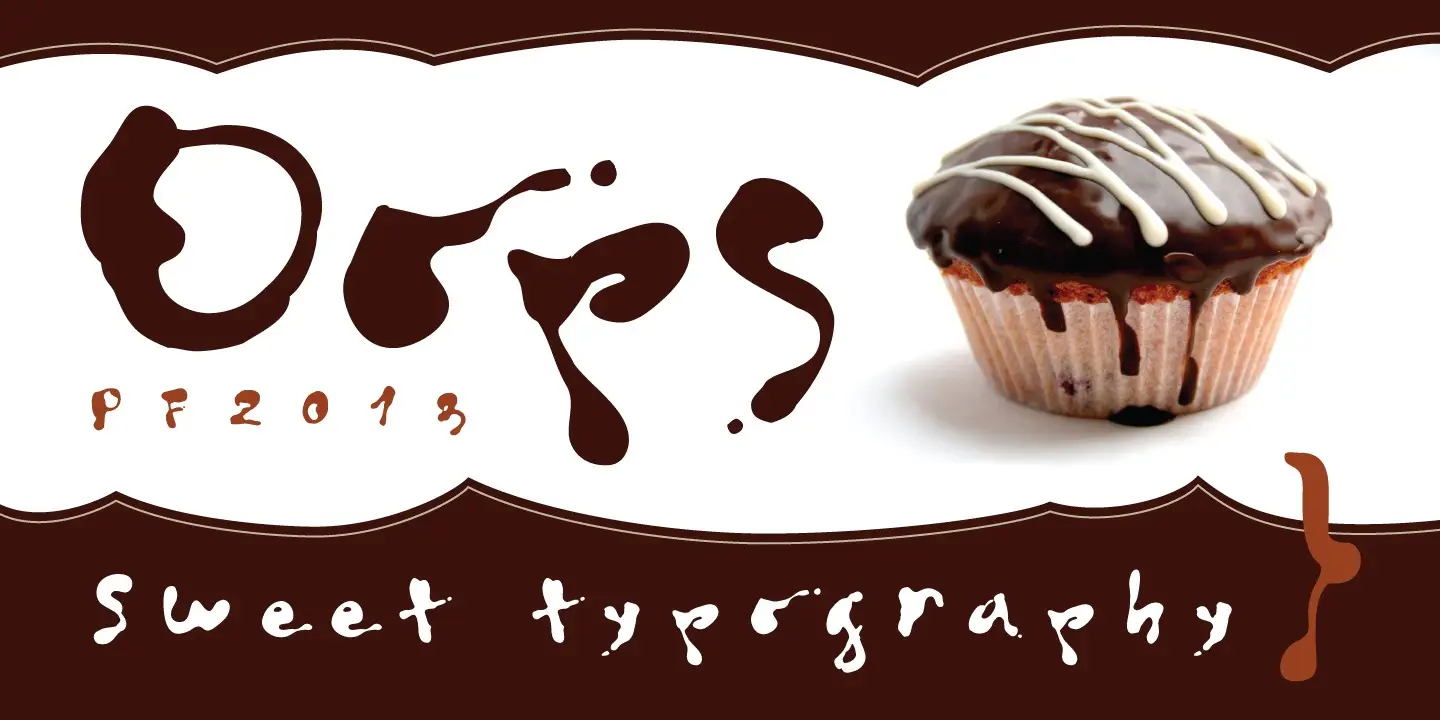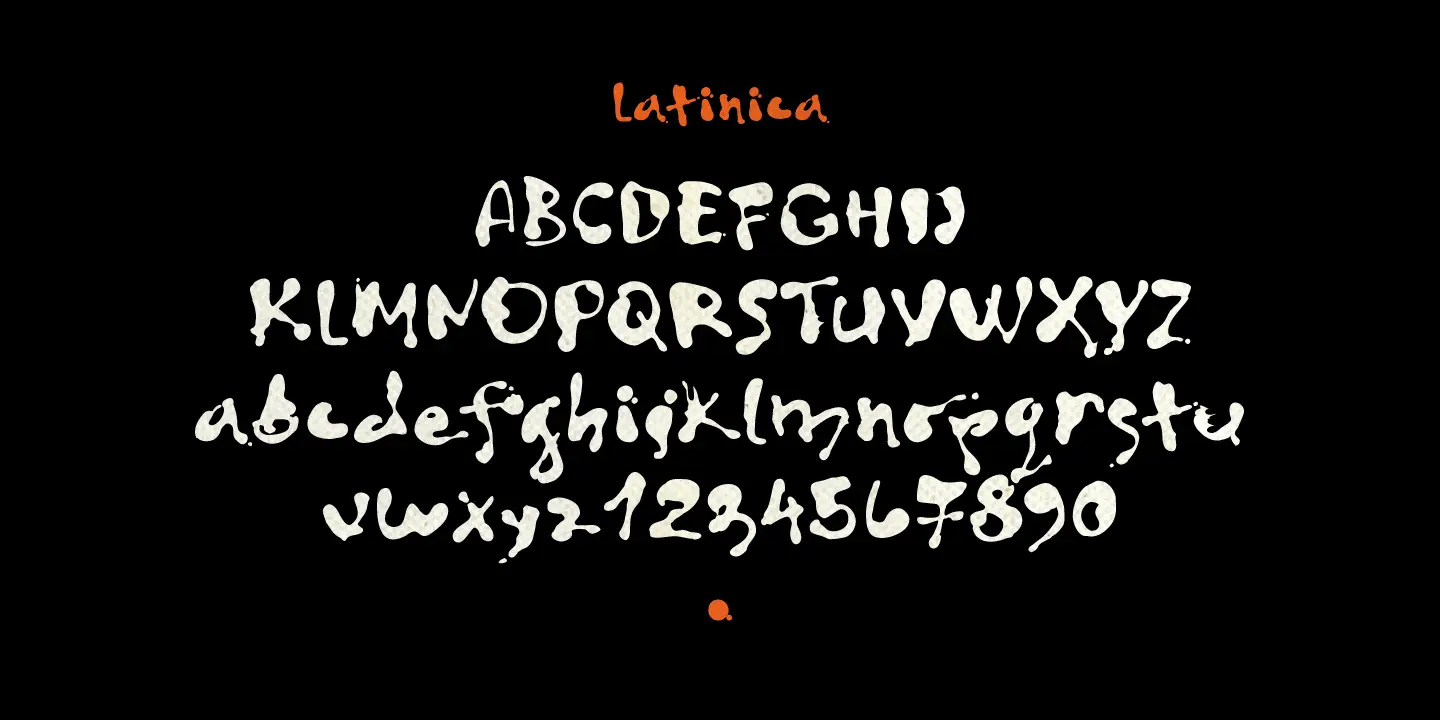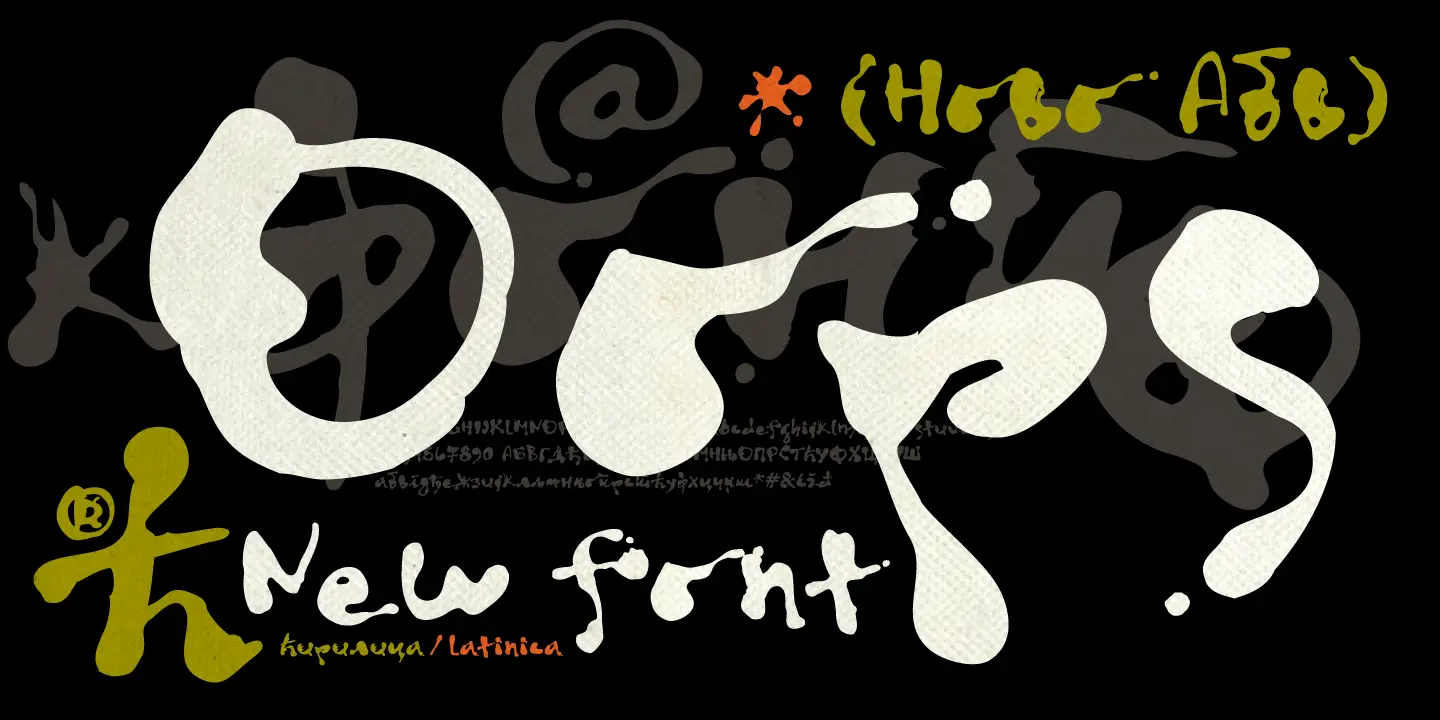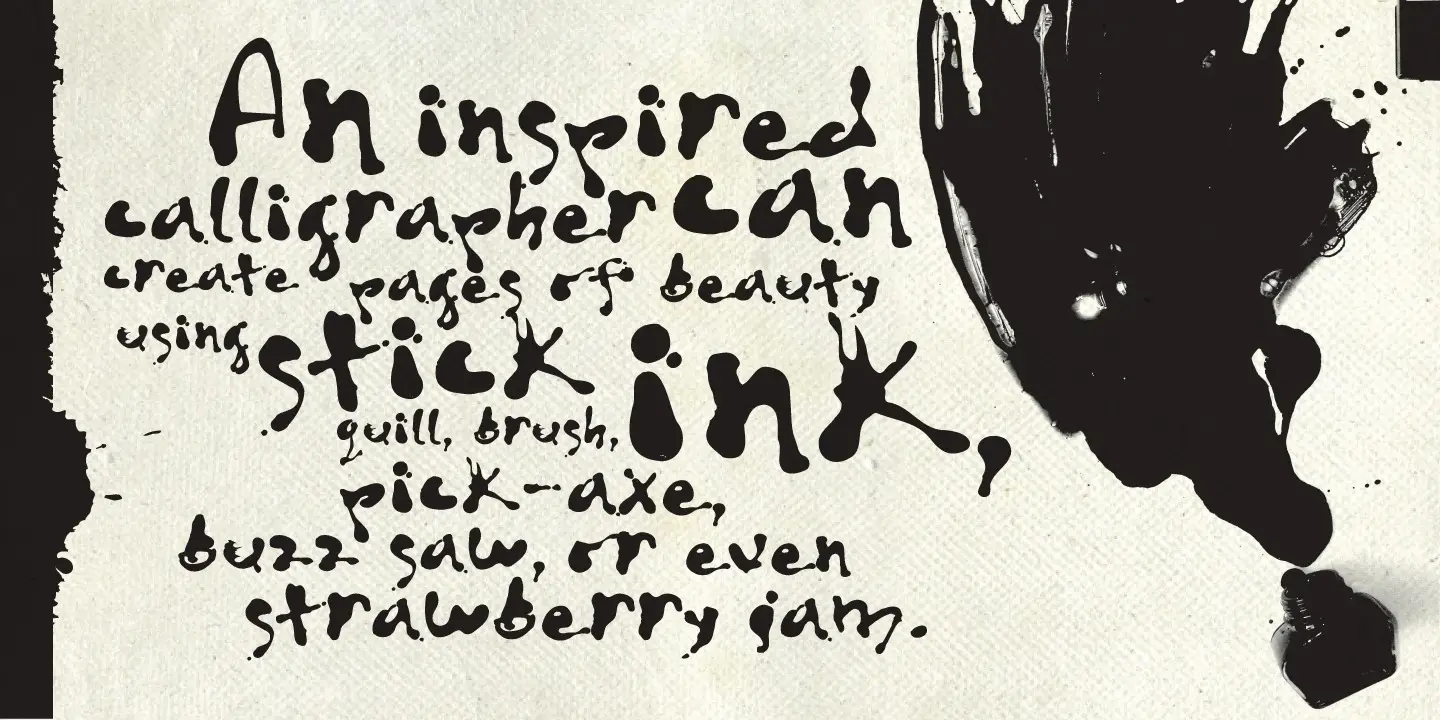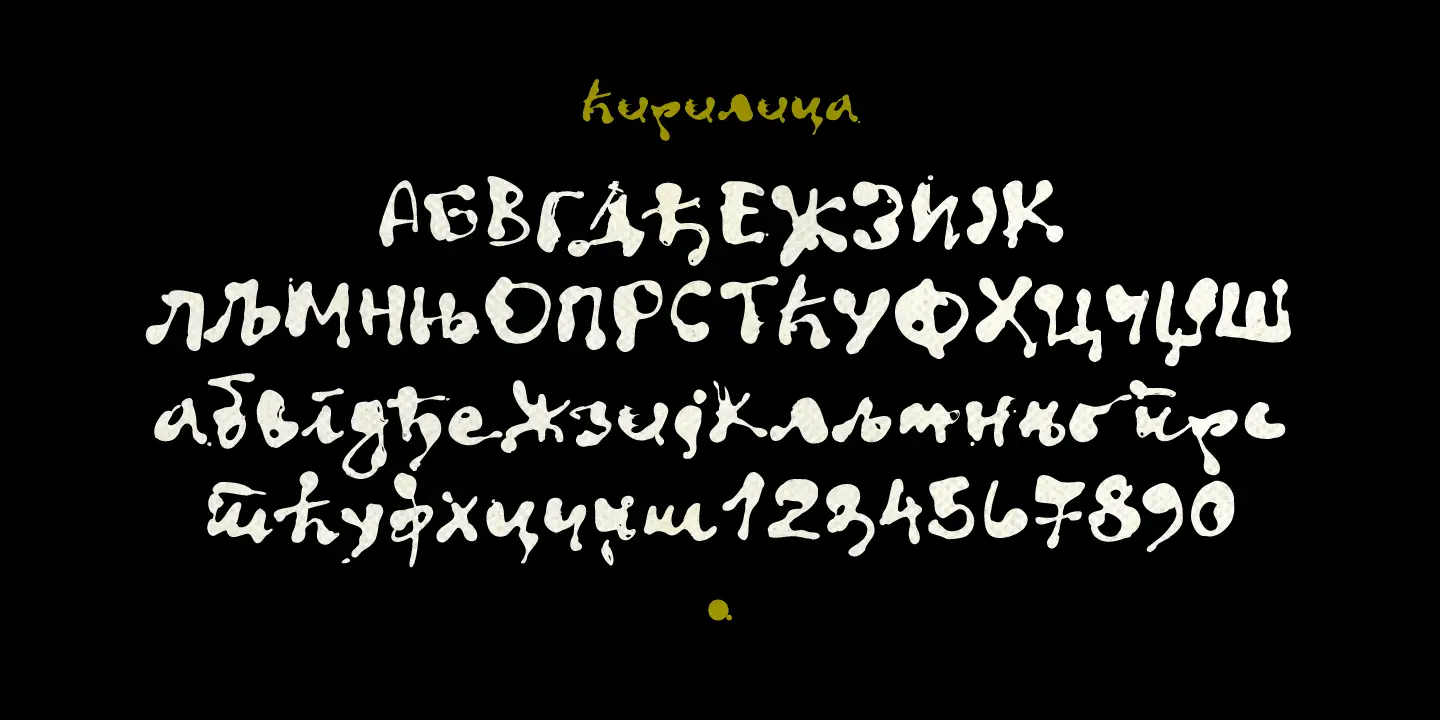
The Oops Font Family presents a delightful blend of creativity and versatility, making it an ideal choice for various design projects. This font family includes multiple styles and weights, allowing for a range of typographic expressions.
- Styles: Regular, Bold, Italic, and more.
- Weights: Light, Regular, Medium, and Bold.